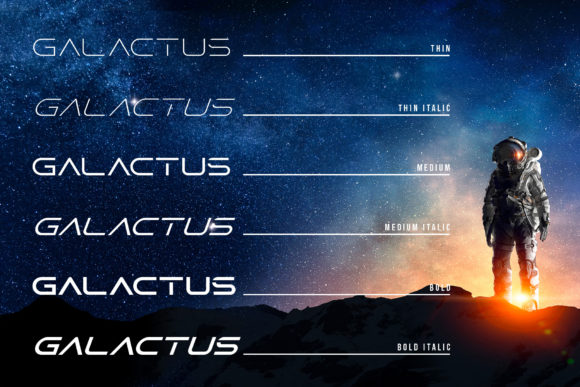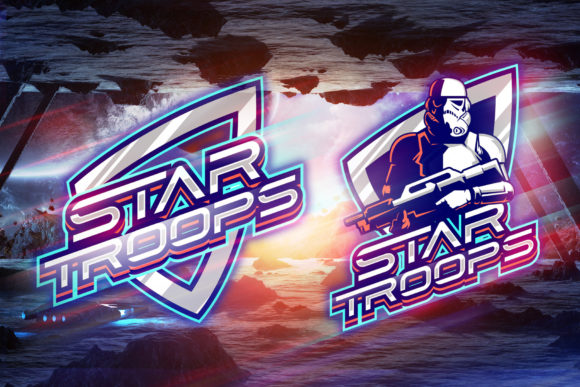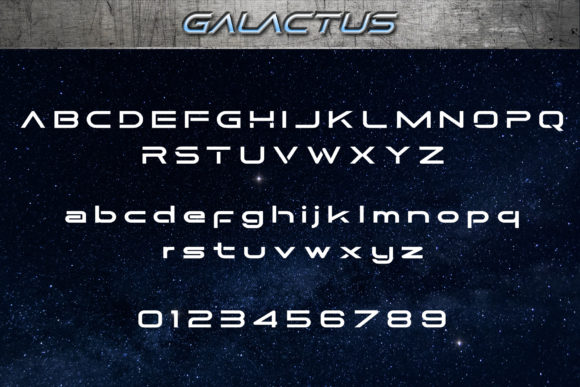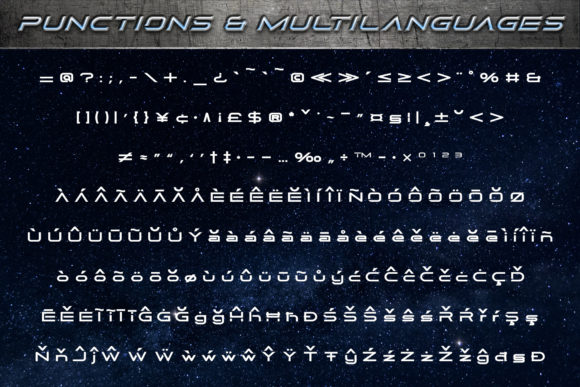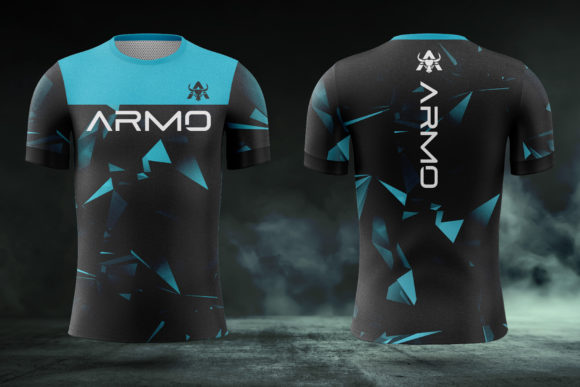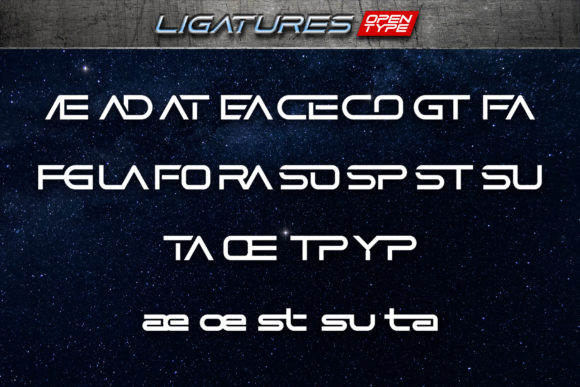
Introducing Galactus Font: The Ultimate Display Font for Modern Designs
Are you tired of using the same old fonts for your designs? Look no further! Galactus Font is here to revolutionize your creative projects with its modern and unique futuristic look. This stunning display font is perfect for designers and crafters who want to add a touch of innovation and style to their work.
What Makes Galactus Font Stand Out?
Galactus Font is not just another font – it’s a game-changer. Its sleek and futuristic design makes it perfect for a wide range of applications, from e-sports logos to aerospace games, t-shirt designs, and more. The font’s modern look and feel will instantly elevate your designs, making them stand out from the crowd.
Perfect for E-Sports Logos and Gaming Designs
The e-sports industry is all about speed, agility, and style – and Galactus Font has got it all! Its bold and futuristic design makes it perfect for creating e-sports logos, team names, and gaming-related designs. Whether you’re designing a logo for a professional gaming team or creating in-game assets, Galactus Font is the perfect choice.
Aerospace and Technology Designs
Galactus Font is also perfect for aerospace and technology-related designs. Its futuristic look and feel make it ideal for creating logos, brochures, and other marketing materials for companies that specialize in space exploration, aviation, or cutting-edge technology.
T-Shirt Designs and Merchandise
But Galactus Font is not just limited to digital designs. Its bold and eye-catching style makes it perfect for t-shirt designs, posters, and other merchandise. Whether you’re creating designs for a clothing brand or designing merchandise for a gaming event, Galactus Font is the perfect choice.
Why Choose Galactus Font?
So why choose Galactus Font over other display fonts? Here are just a few reasons:
- Unique and Modern Design: Galactus Font has a unique and modern design that will make your designs stand out from the crowd.
- Versatile: Galactus Font can be used for a wide range of applications, from e-sports logos to aerospace games, t-shirt designs, and more.
- Easy to Read: Despite its bold and futuristic design, Galactus Font is easy to read, making it perfect for headlines, titles, and other display text.
- High-Quality: Galactus Font is a high-quality font that is designed to look great in any size or resolution.
Tips and Tricks for Using Galactus Font
Here are a few tips and tricks for getting the most out of Galactus Font:
- Use it for Headlines and Titles: Galactus Font is perfect for headlines and titles, where you want to make a bold statement.
- Experiment with Colors: Galactus Font looks great in a wide range of colors, so don’t be afraid to experiment and find the perfect color scheme for your design.
- Pair it with Other Fonts: Galactus Font can be paired with other fonts to create a unique and interesting design.
In conclusion, Galactus Font is a great display font that is modern, unique, and futuristic. Its versatility and high-quality design make it perfect for a wide range of applications, from e-sports logos to aerospace games, t-shirt designs, and more. Whether you’re a designer, crafter, or simply someone who loves to create, Galactus Font is a must-have font that will take your designs to the next level.